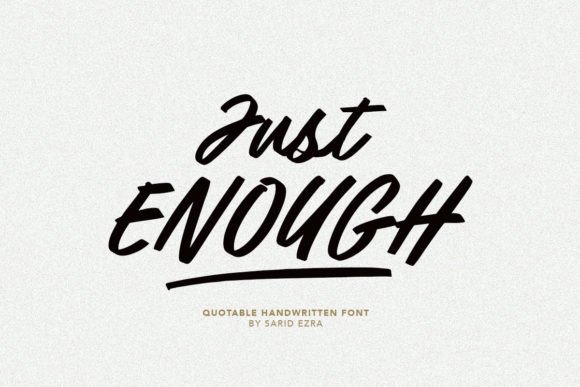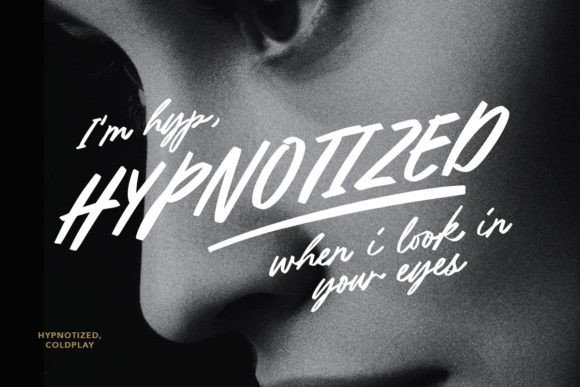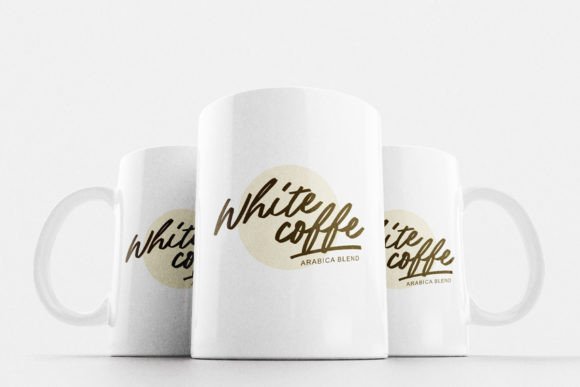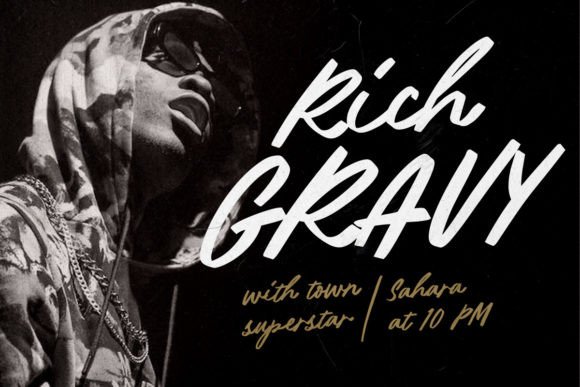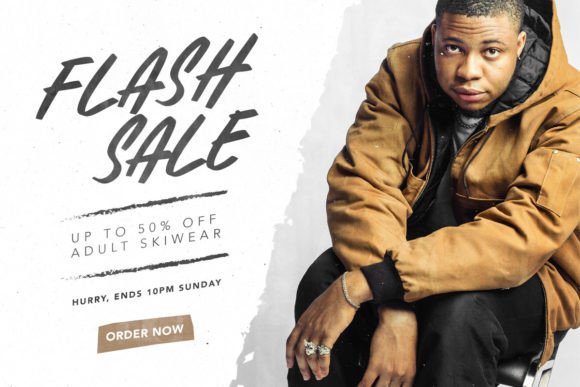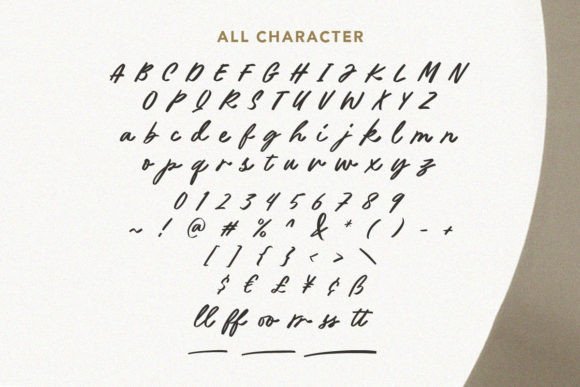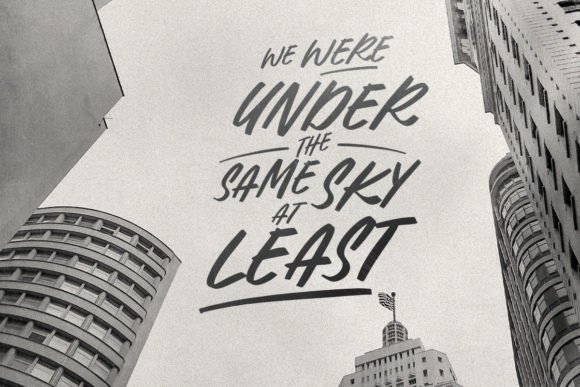
Just Enough is a handwritten quotable font that you can use in both lowercase & uppercase separately and will still be looking good. You can use this font for any purpose such as a logotype, branding, or slogan, and is very suitable for quotes. This font is so versatile, you can combine it with your font collections.
Just Enough Font